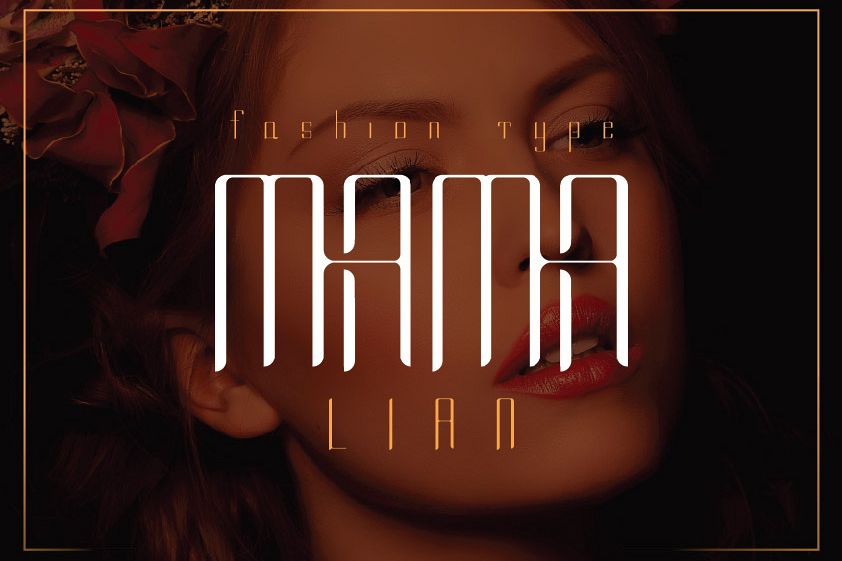
Mama Lian
MamaLian.
Mama Lian is a sans-serif type which can be used for several type of projects from digital to print. Each font has small letters, capitals, numbers, ligature, stylistic and punctuation. This typeface is for all type lovers who would like to emphasize a fashion project.